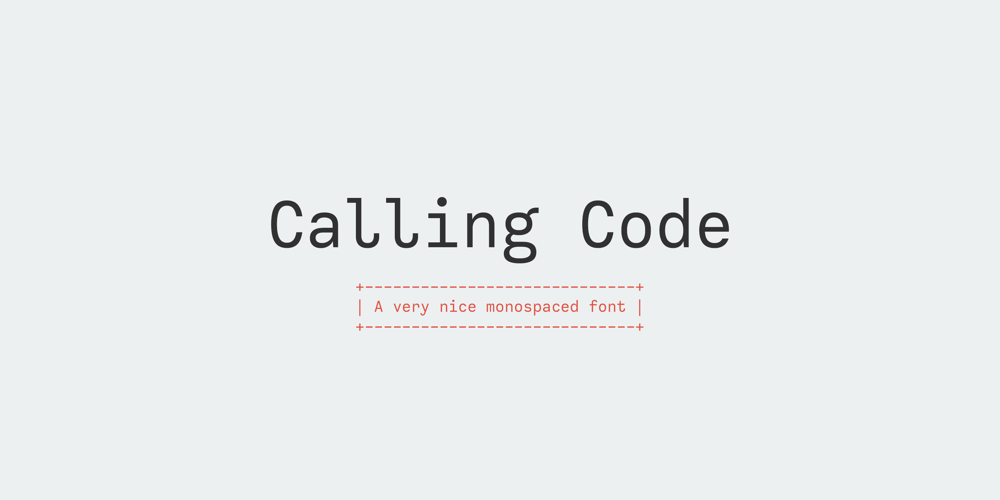
Calling Code
Calling Code font
Calling Code Font Family was designed by Ryoichi Tsunekawa and published by Dharma Type. Calling Code contains 4 styles and family package options. Calling Code — very nice monospaced font — 1. is a monospaced font family for coding and tabular layout. 2. simply consists of 4 style, Regular, Italic, Bold and Bold Italic. 3. is ready in both OpenType and TrueType formats. 4. has slightly condensed width for more useful space. 5. has good distinguishability and legibility and cute curly tails. 6. brings a fresh sensitivity to boring old existing monospaced fonts. You can try Regular style for free.